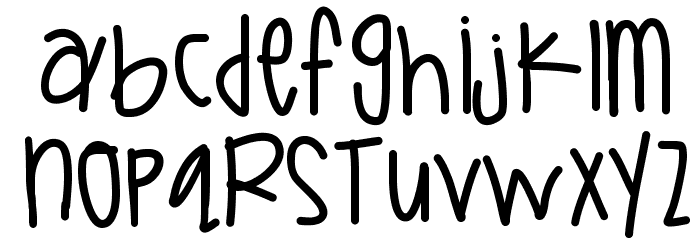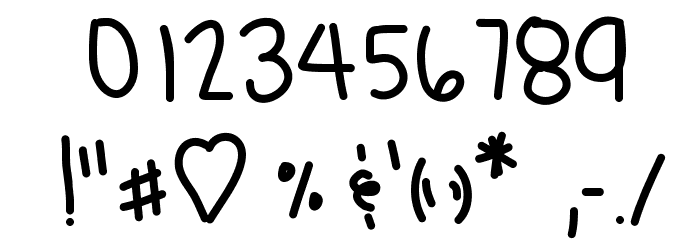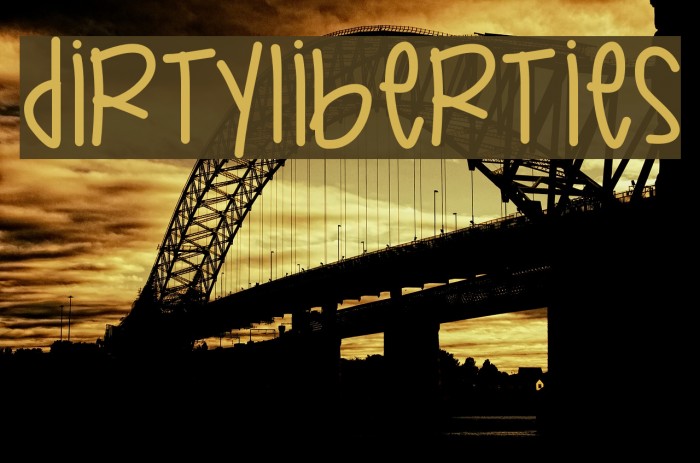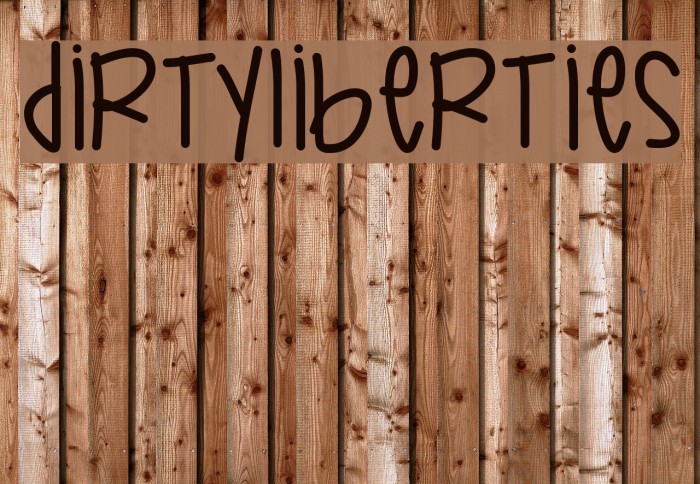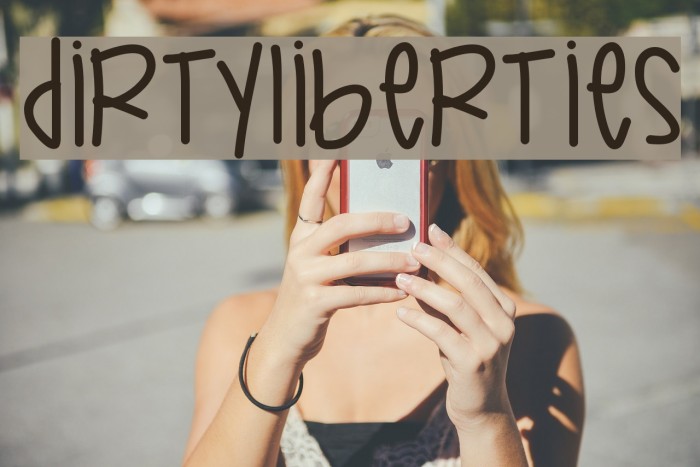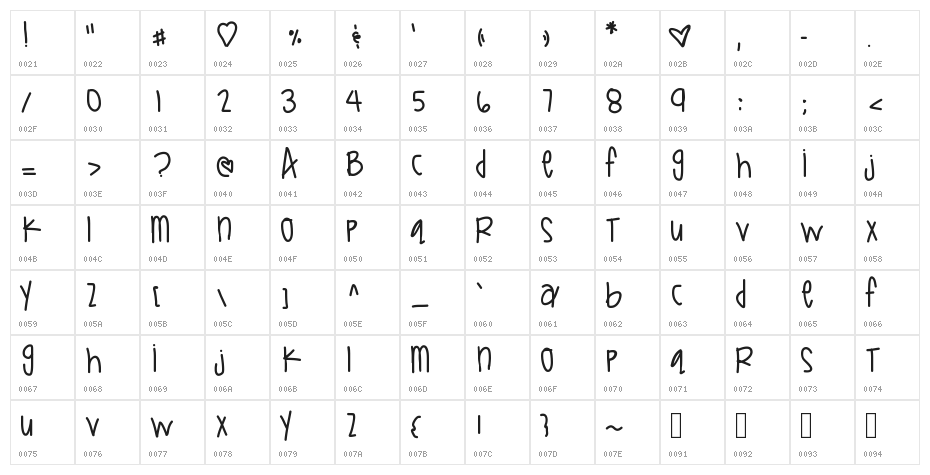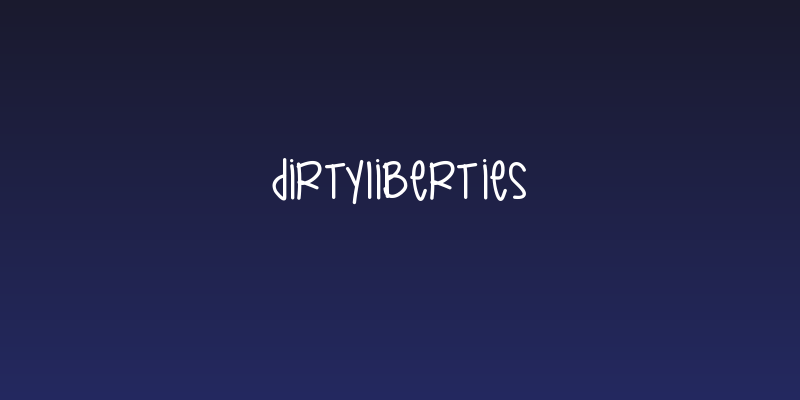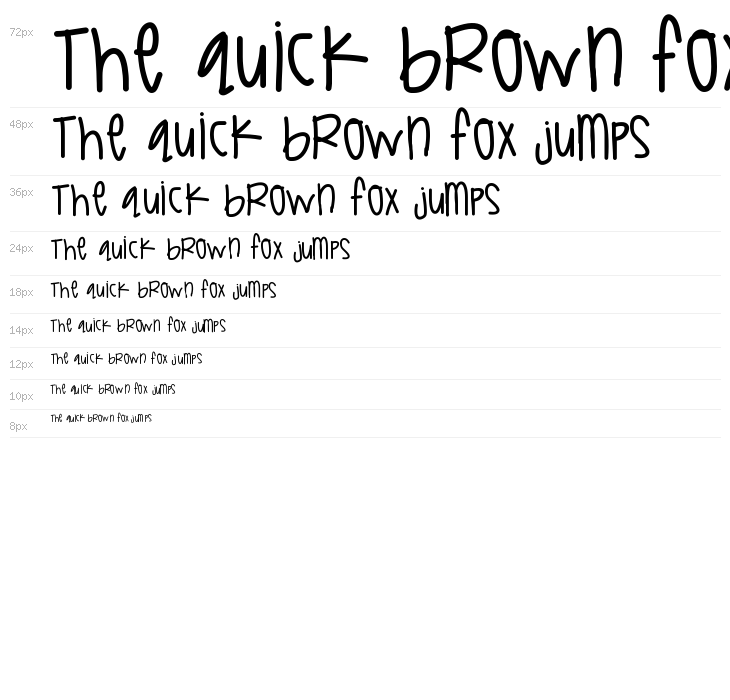
DirtyLiberties Font
This font features a playful and informal handwritten style, characterized by its irregular and slightly whimsical letterforms. The strokes are consistent in width, giving it a uniform appearance despite its casual nature. The uppercase and lowercase letters maintain a cohesive look, with rounded edges and a slight tilt that adds to its charm. Numbers and special characters follow the same playful aesthetic, making it versatile for various creative applications. The font exudes a friendly and approachable vibe, perfect for projects that require a personal touch.
A playful, handwritten font with a casual and whimsical style.
- Proposed Projects: Ideal for greeting cards, children's books, playful branding, and social media graphics.
- Overall Style: Casual
- Use Case: Headlines, Informal text, Creative projects